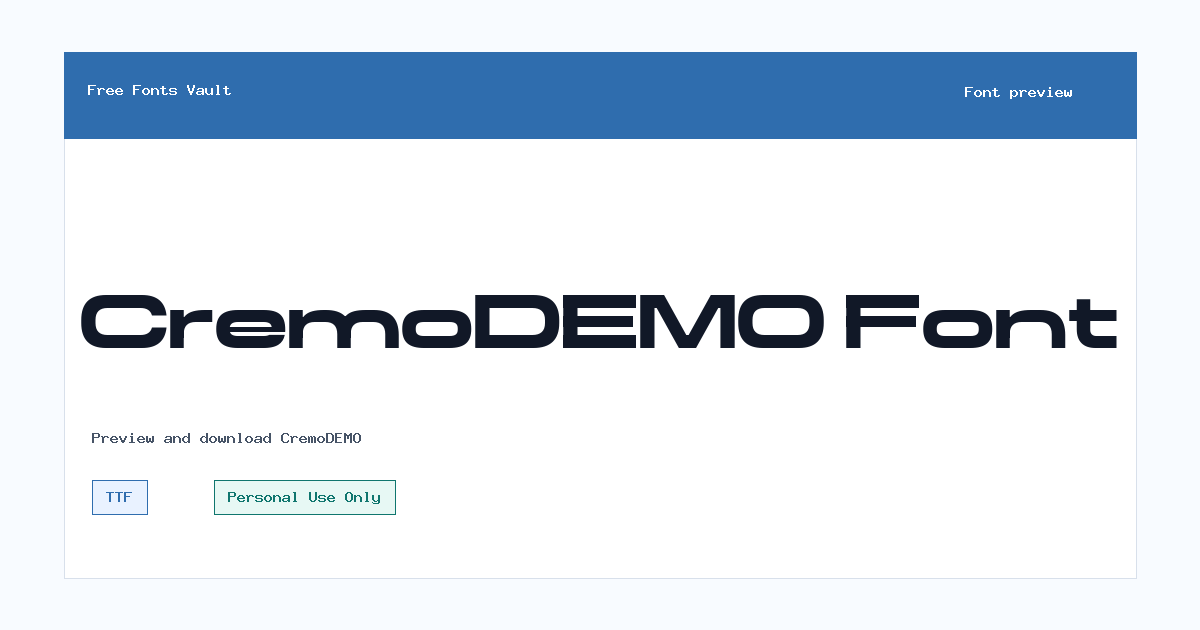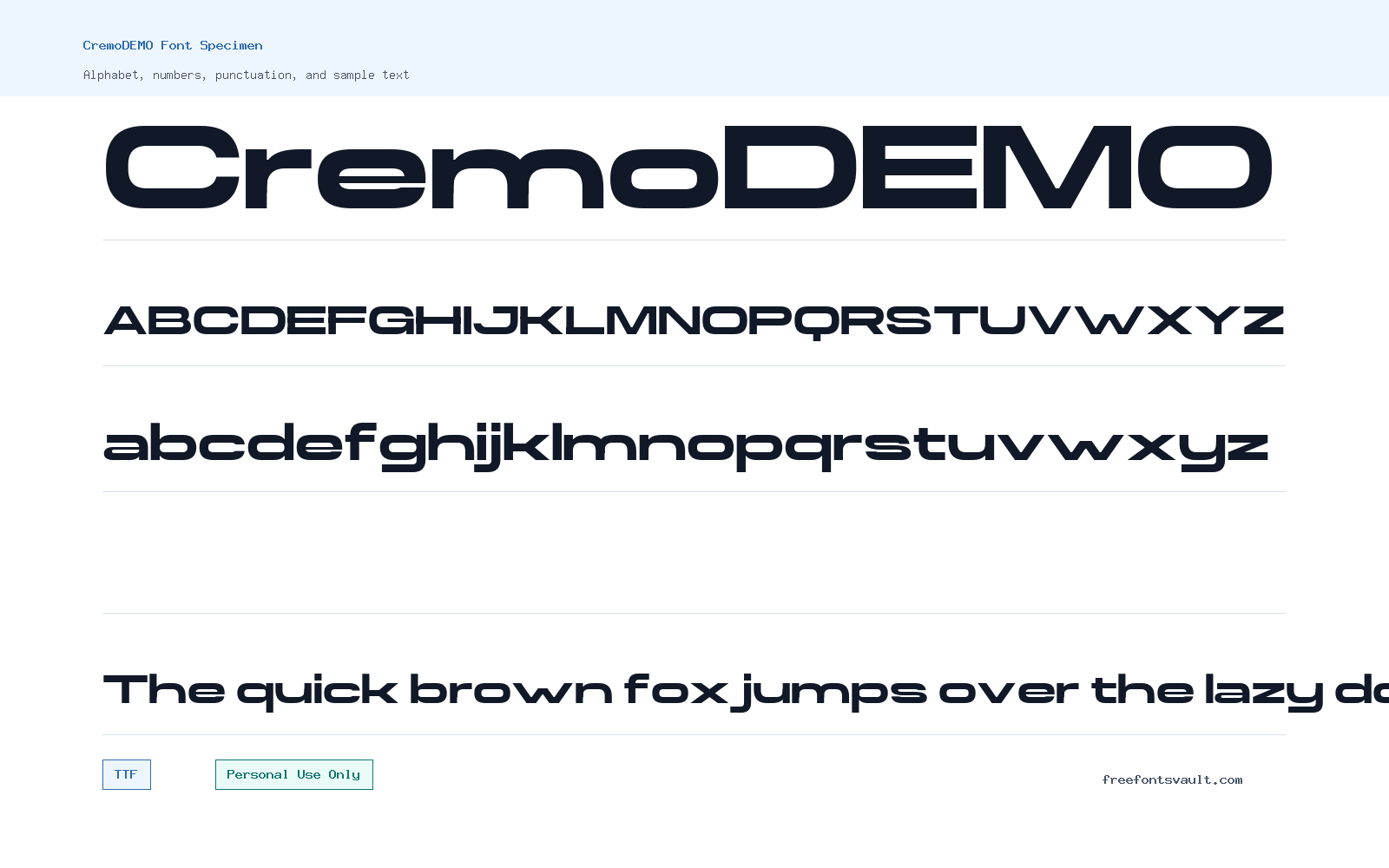
CremoDEMO
- Designer Ragamkata Studio
CremoDEMO is a bold expanded sans serif display font made for large, confident text. Its wide letterforms and clean shapes work best when you need a headline, logo draft, poster title, or web mockup to feel strong without becoming decorative.
CremoDEMO has the look of a modern display sans: broad proportions, heavy strokes, and a clean geometric feel. It is not a quiet body-text font. The value is in short, high-impact words where the width of each letter can help fill space and create a firm visual anchor. In a title, the font can make a phrase feel structured and direct. In a logo concept, it gives you a solid starting point for uppercase marks, compact brand names, and simple wordmarks. Because the design is expanded rather than condensed, it needs room to breathe. It can look especially effective when used with generous spacing, simple color palettes, and layouts that do not crowd the letters with too many competing elements.
- Bold expanded sans serif letterforms with wide proportions for strong display text
- Clean geometric feel that suits modern headlines, logo drafts, posters, packaging mockups, and web hero sections
- Best used for short words, titles, and brand-style compositions rather than long paragraphs
- Logo concepts and personal branding drafts
- Poster titles, album-style covers, and event graphics
- Website hero headings and landing page mockups
- Packaging studies, label concepts, and product presentation layouts
- Social media graphics, thumbnails, and bold promotional banners
- Fashion, streetwear, tech, esports, and modern display-style personal projects
CremoDEMO is credited to Ragamkata Studio. No separate foundry information is confirmed for this listing.
For the best result, use CremoDEMO at large sizes with short text. Start with titles, names, or two- to four-word phrases, then adjust tracking and line breaks until the wide forms feel balanced. Pair it with a simpler sans serif for body copy, product descriptions, navigation, or captions. If you are designing a logo, test the wordmark in black and white first, then check how it holds up at small sizes before adding effects.
What kind of font is CremoDEMO?
CremoDEMO is a bold expanded sans serif display font. It is built for strong headlines, logo-style text, posters, packaging mockups, and other short display uses.
Is CremoDEMO good for body text?
It is not ideal for long paragraphs. The wide, bold style is better for titles and short phrases. Use a more neutral readable font for body copy.
What should I pair with CremoDEMO?
Pair it with a clean, neutral sans serif for body text and smaller interface details. Let CremoDEMO handle the main headline or wordmark so the layout stays clear.